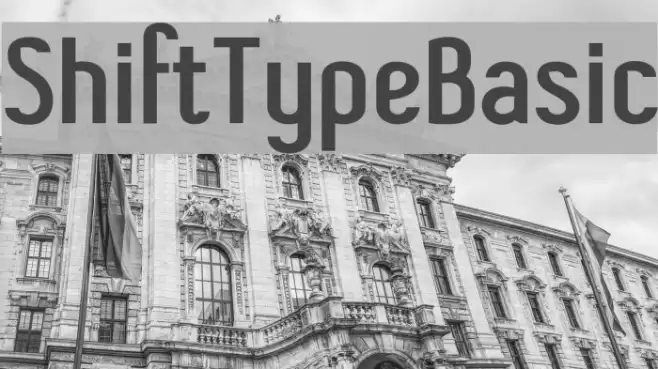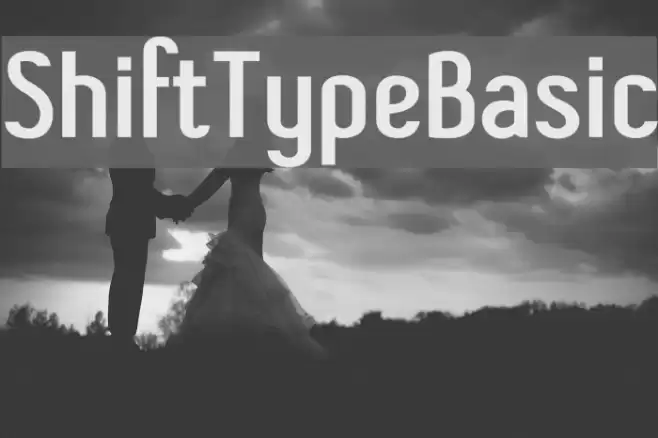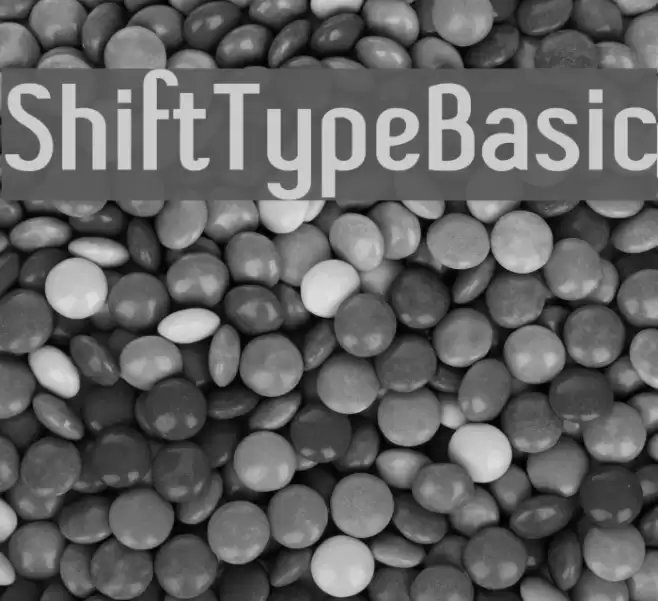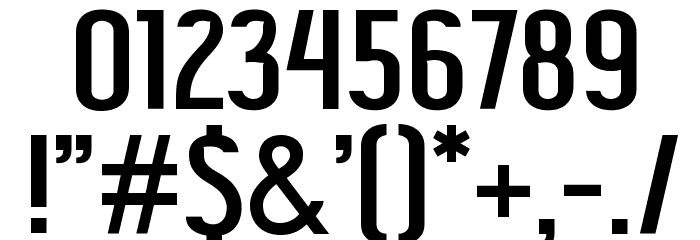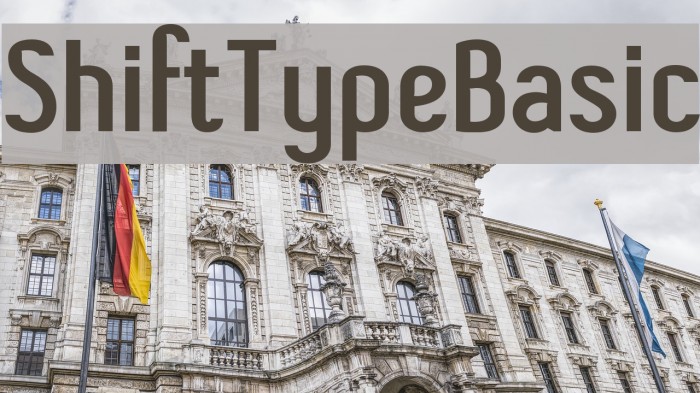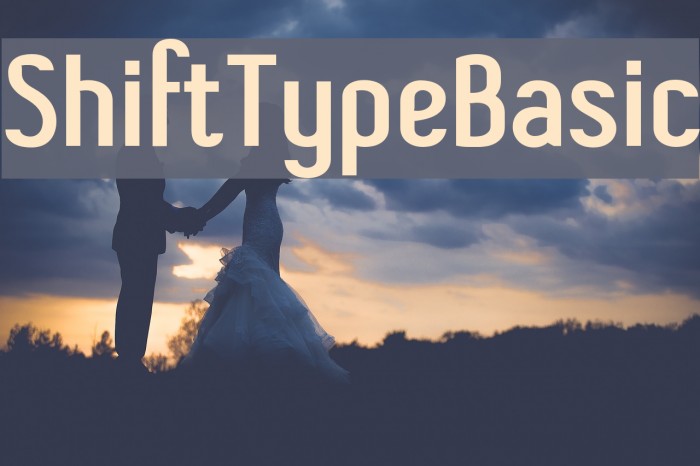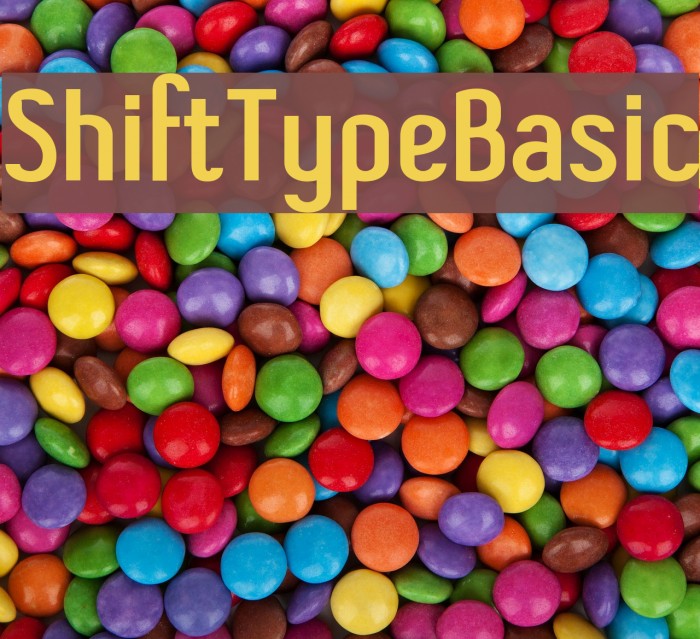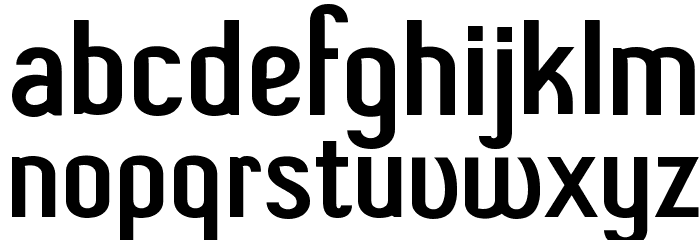
ShiftTypeBasic Font
ShiftTypeBasic Description
This font features a bold and modern sans-serif style with clean, geometric lines. The uppercase letters are tall and slightly condensed, giving a strong and assertive appearance. Lowercase letters maintain a consistent height, contributing to a uniform look. The numerals are clear and distinct, ensuring readability. Special characters are well-defined, adding versatility. The overall design is sleek and contemporary, making it suitable for a variety of design applications.
A bold, modern sans-serif font with clean, geometric lines from Uncategorized fonts.
- Proposed Projects: Ideal for branding, advertising, headlines, and digital media projects that require a modern and assertive look.
- Use Case: Headlines, Logos, Branding